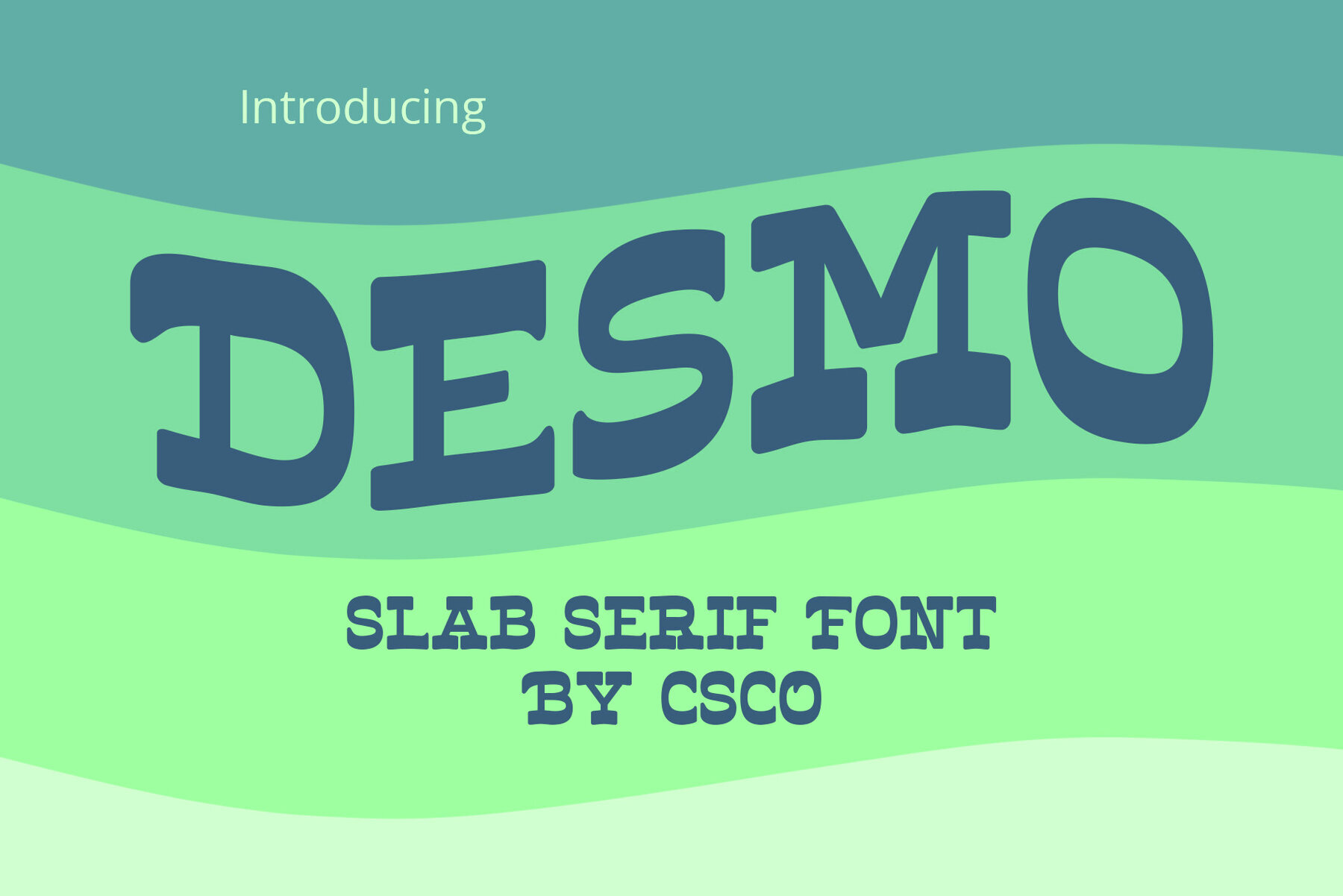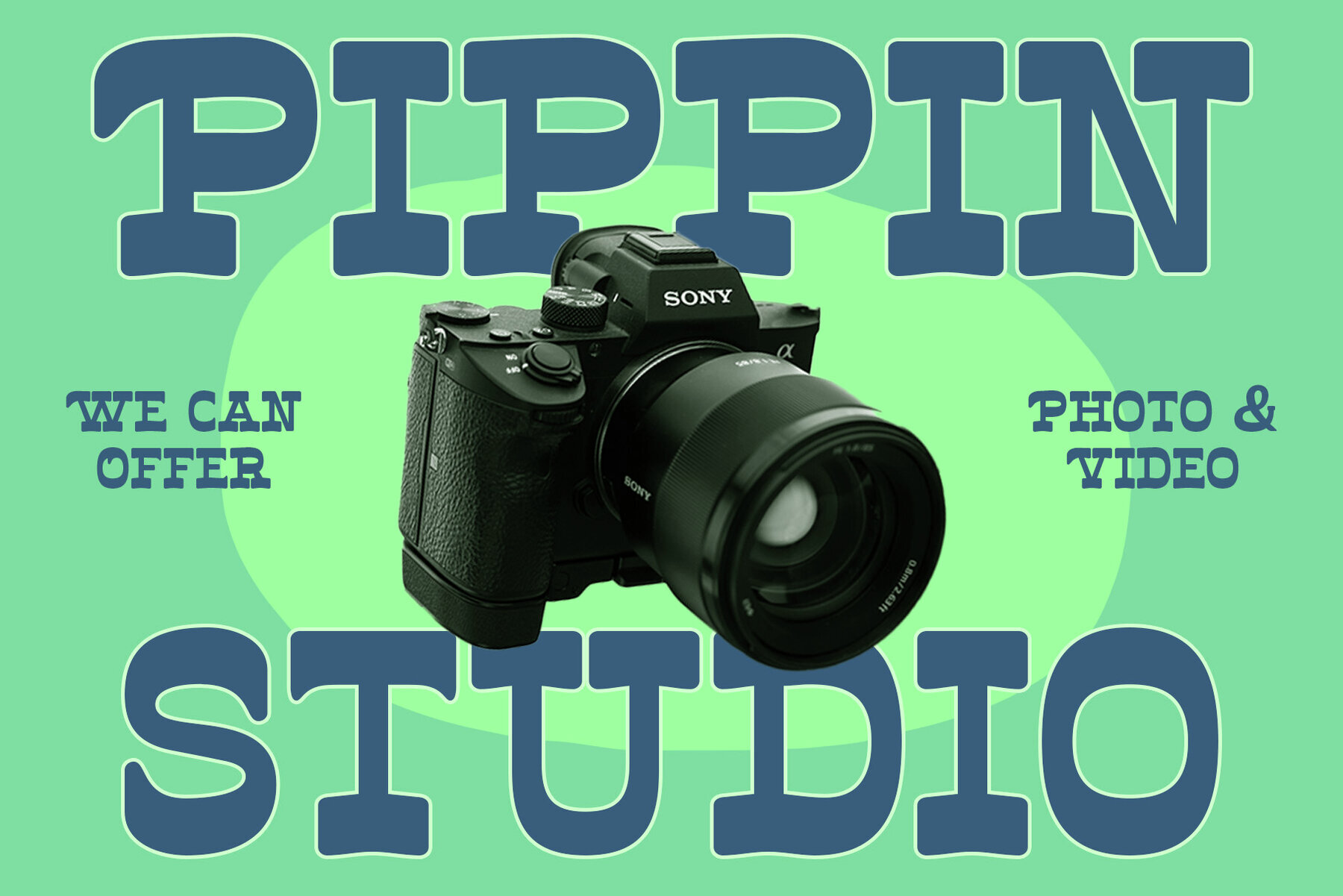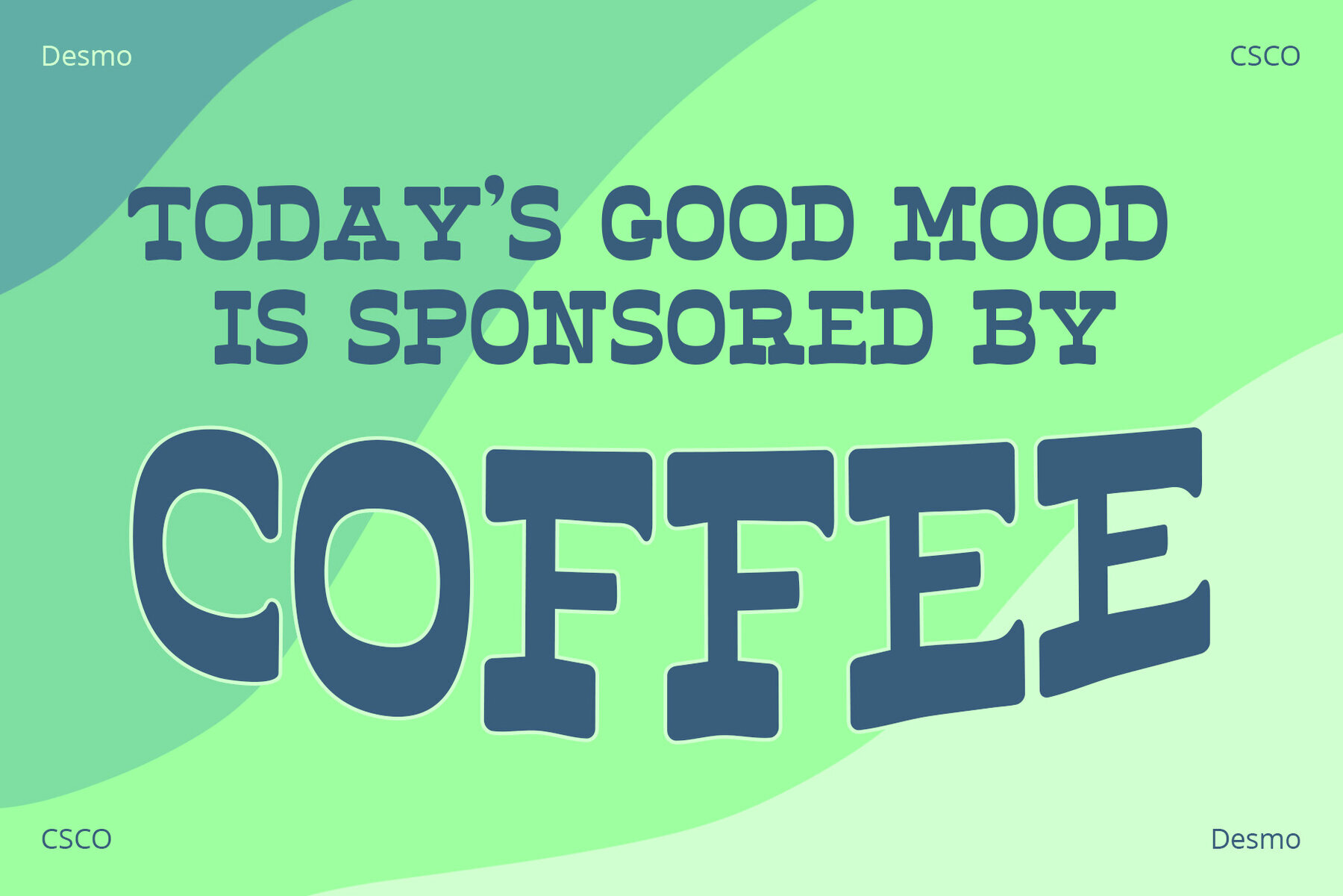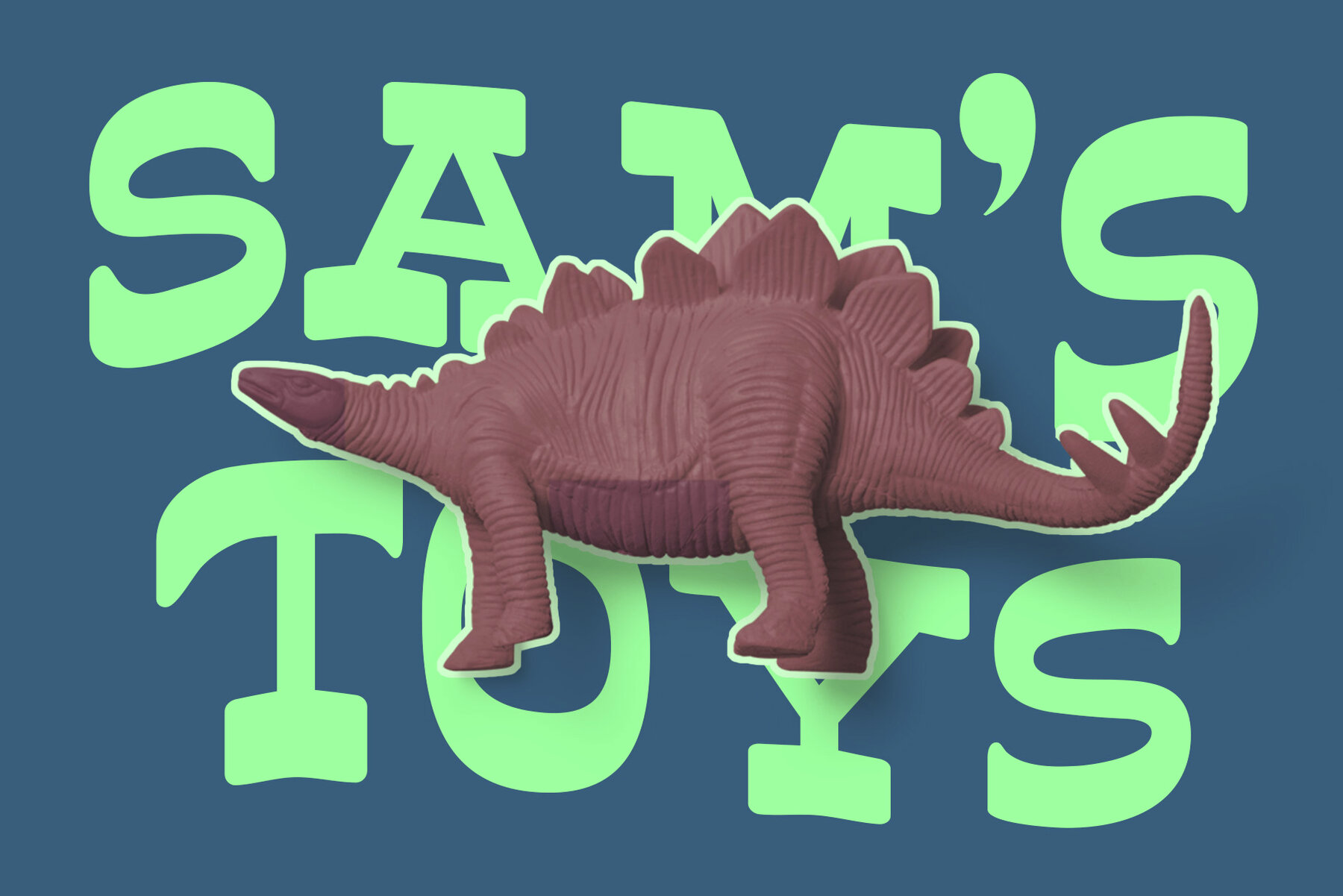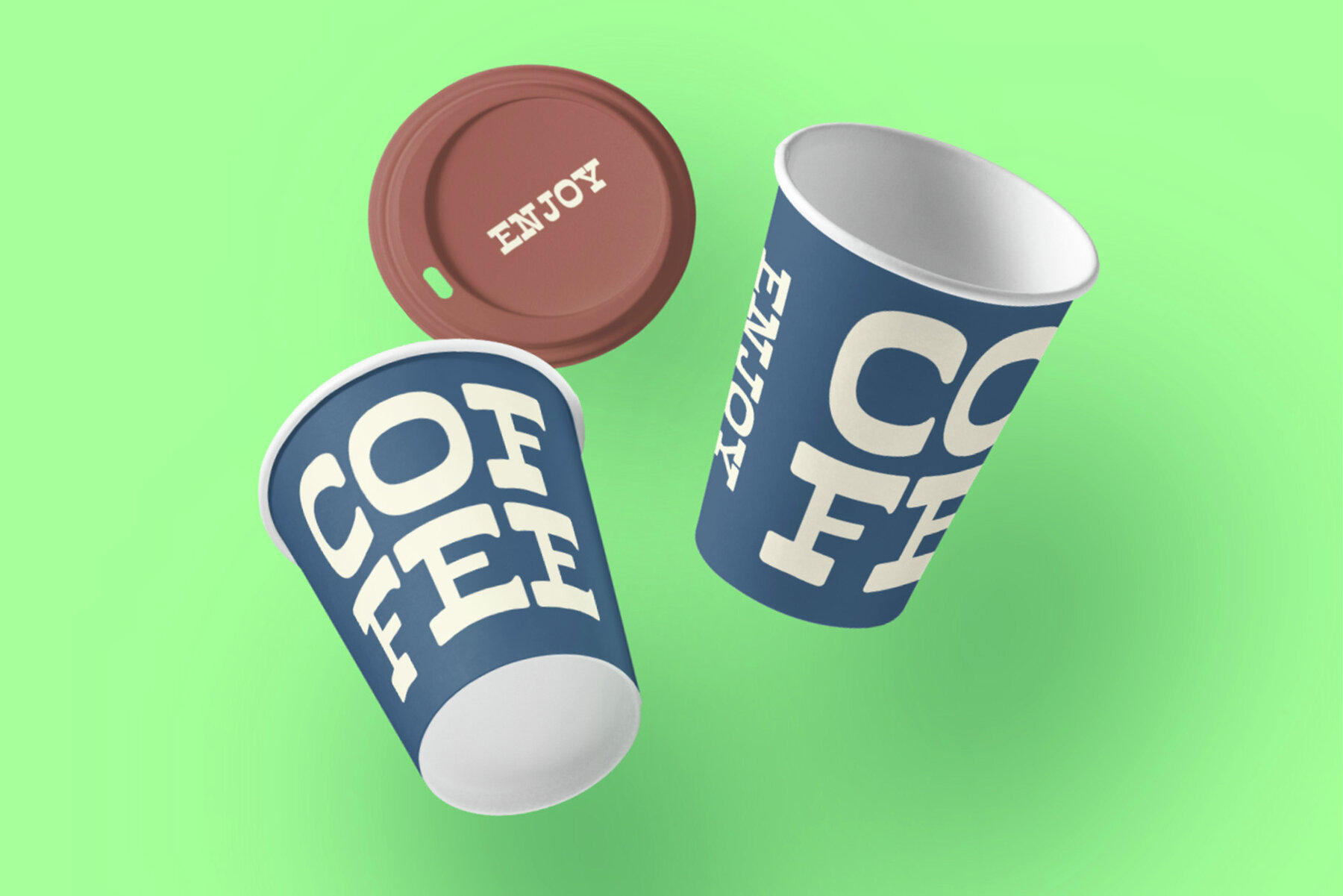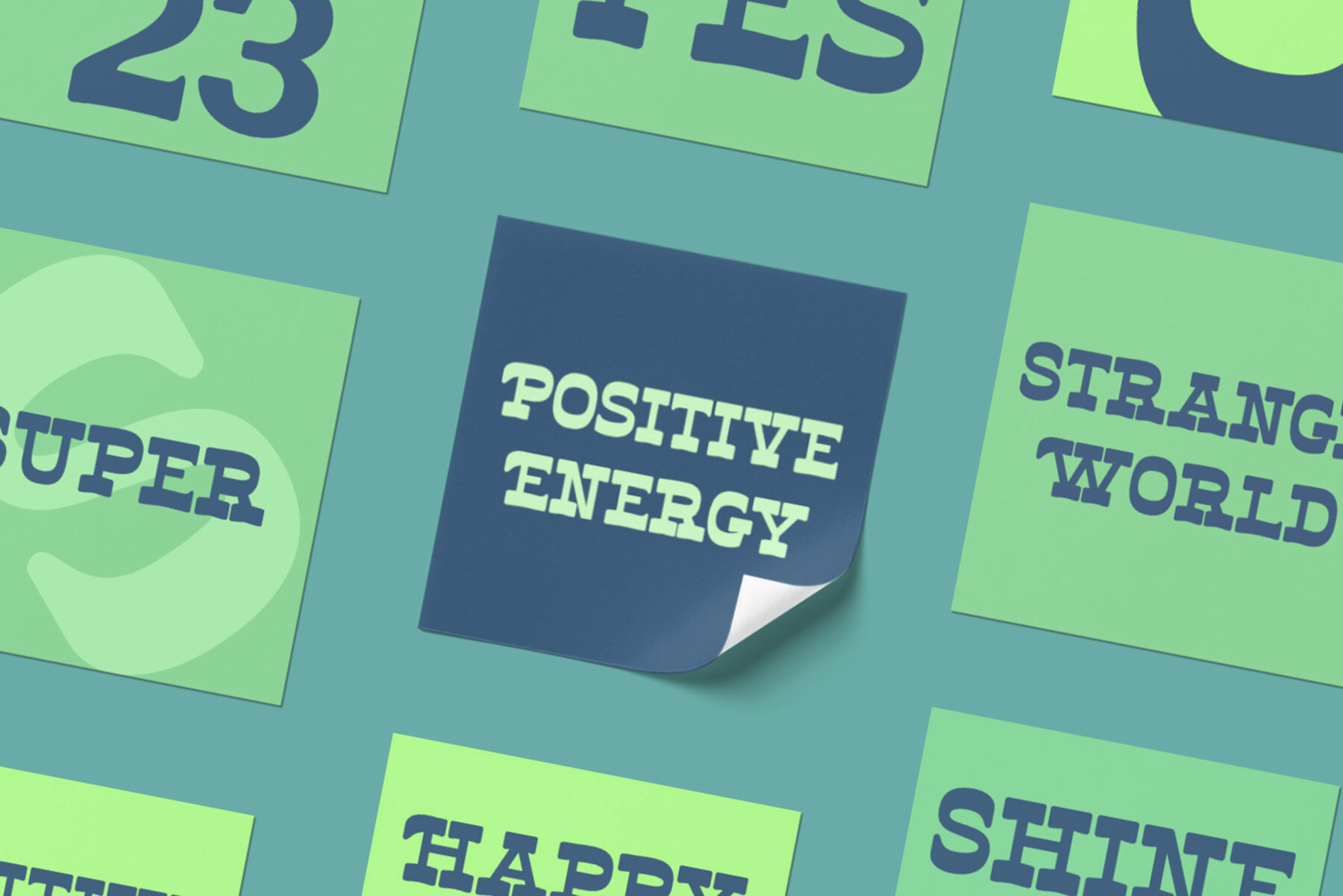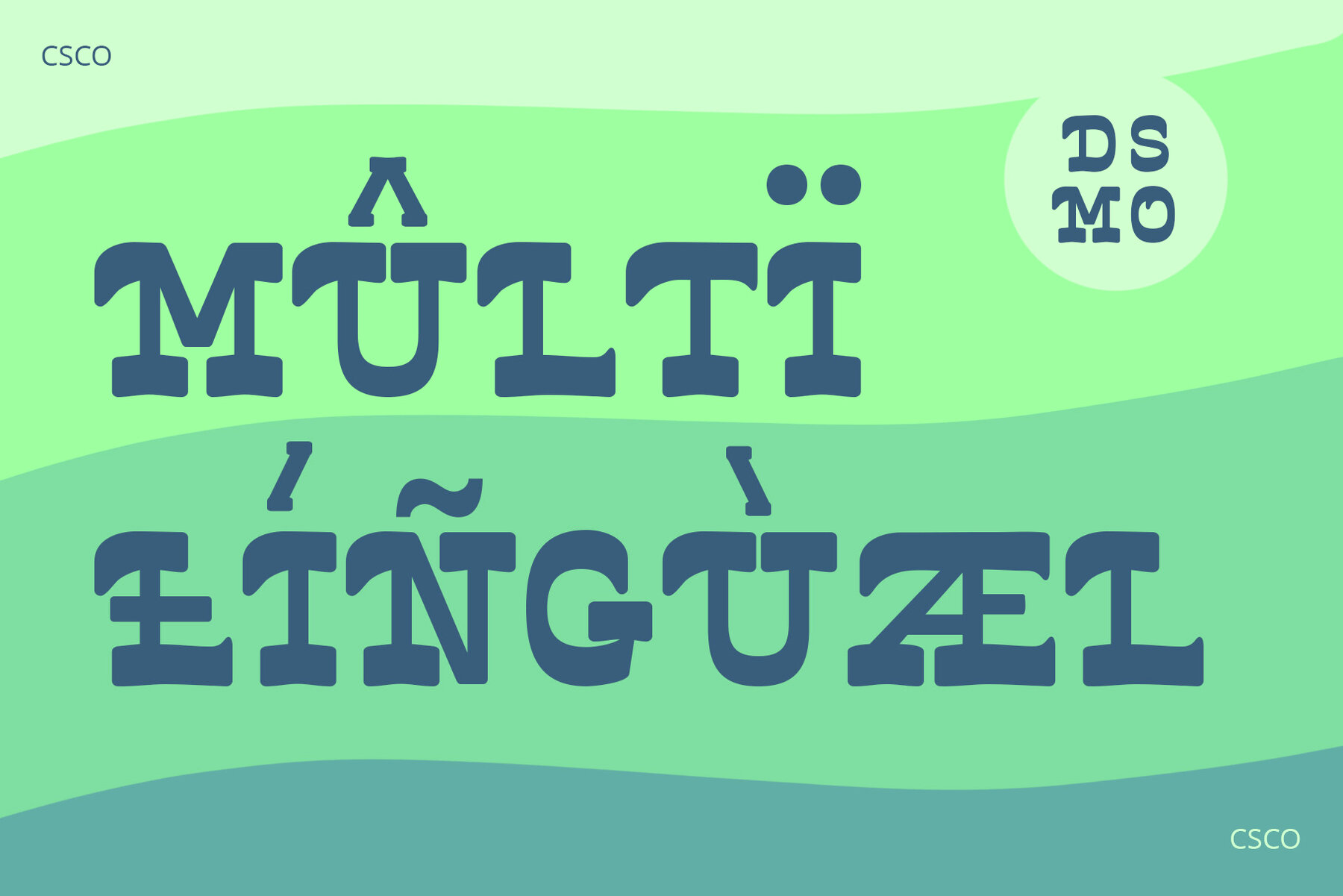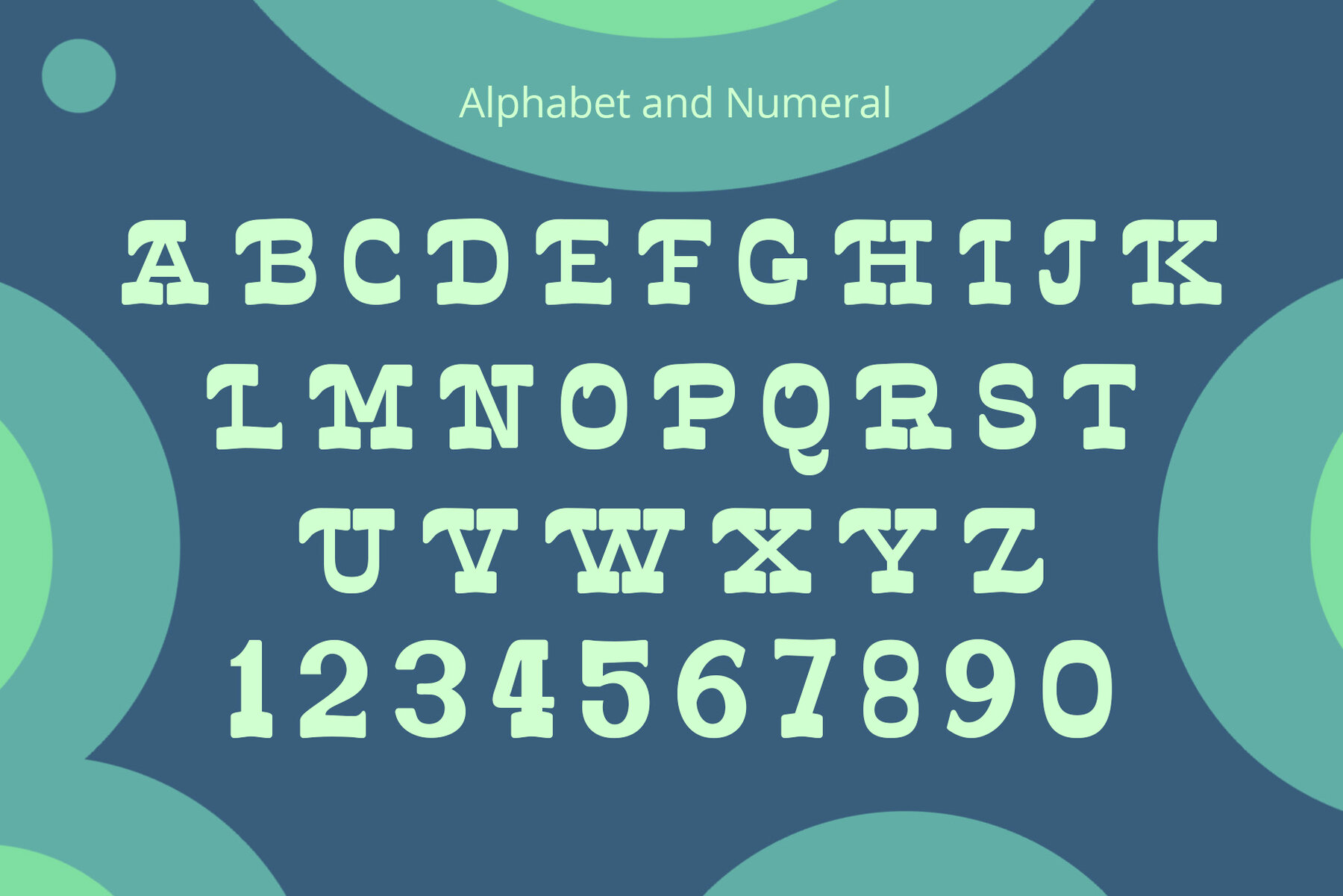
Desmo Font
Desmo Regular
The Desmo font offers a striking design with its unique reversed contrast. Characterized by thick horizontal lines and thin verticals, this font captures attention, making it ideal for impactful displays. Desmo excels in display settings, such as headlines, posters, and advertising. Its bold features ensure readability from a distance, while its distinct style adds engagement to every design. Designed to captivate, Desmo’s slab serifs bring a touch of elegance. The font's balanced spacing enhances clarity, making it perfect for brands that wish to make a statement.Desmo: Reversed Contrast Slab Serif Font
Versatile Display Font
Engaging Typography